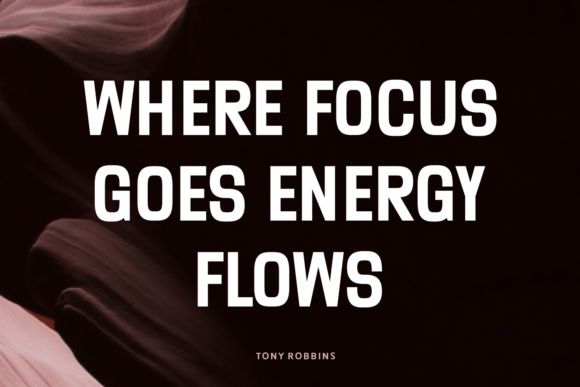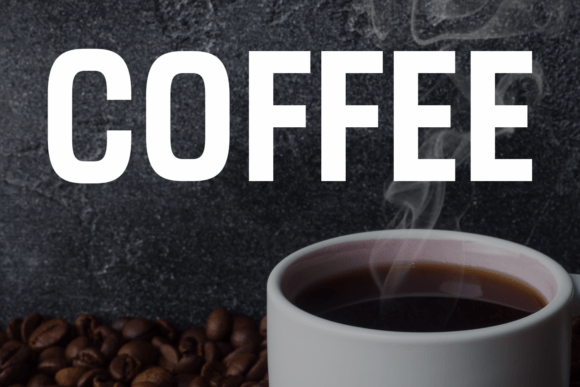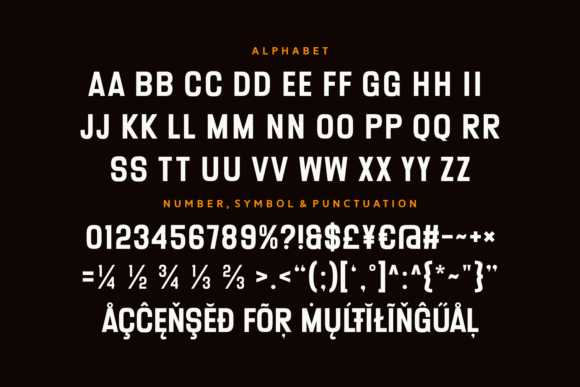
Introduction to Menko Font
Menko is a clean, bold sans serif font that delivers confidence and clarity in every character.
Its strong structure and versatile appearance make it a perfect choice for branding, advertising, website headlines, packaging, business presentations, and more With an all-caps style and modern proportions, Menko works beautifully for tech companies, startups, sports brands, or editorial use.
Key Features of Menko Font